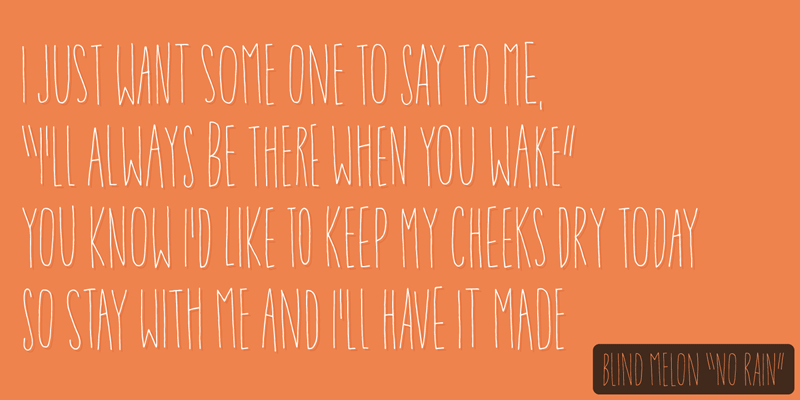
Font name: | Ansichkaart |
Author: | Pizzadude |
Ansichtkaart is dutch for postcard. People rarely send postcards these days, they send emails. But, if you really, really want to send a postcard, then write it by hand. Otherwise, send a greeting via email using cute graphics and a cute font. Use Ansichtkaart! The receiver will love it! Comes with astonoshing 8 different versions of each letter, using contextual alternates. Besides that, the font is loaded with foreign characters! Download the FULL version here: http://www.myfonts.com/fonts/pizzadude/ansichtkaart/ |